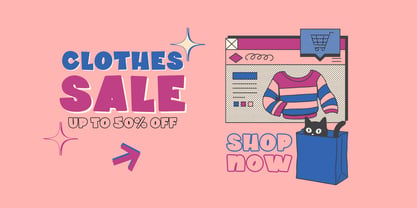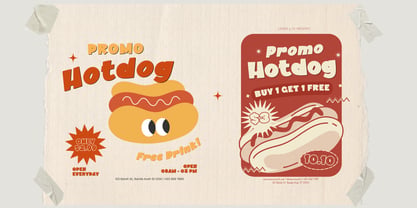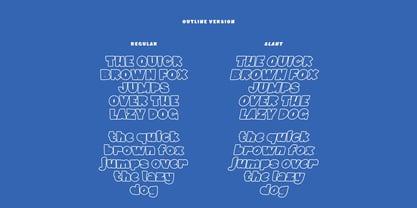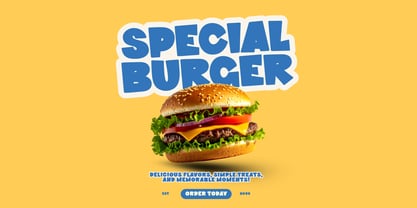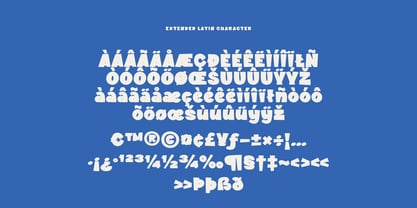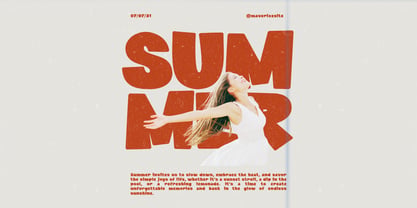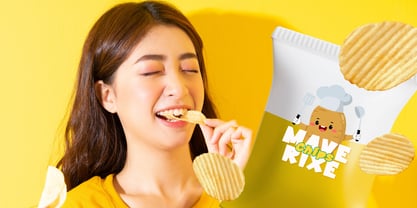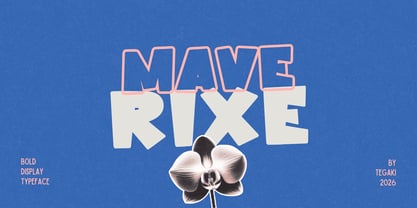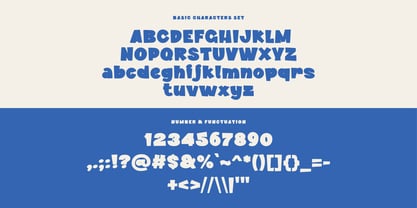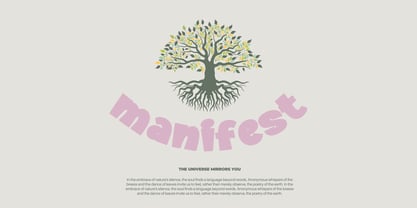
Maverixe
by Tegaki
The Maverixe Font Family was designed by Rudi Suhairi and published by Tegaki. Maverixe contains 4 styles and family package options. More about this family
Maverixe – Bold Display Typeface Maverixe is a bold display typeface designed to make a strong and confident statement. Featuring thick, playful letterforms with smooth curves and a solid structure, it delivers a modern yet friendly personality. The balanced proportions and distinctive shapes create an eye-catching presence, perfect for standout typography. This typeface comes in 2 versions: Bold and Outline, and each version includes Regular and Slant styles, giving you flexibility to create powerful static layouts or dynamic, energetic compositions. Maverixe is ideal for headlines, posters, branding, packaging, logos, social media graphics, merchandise, and editorial covers. Whether you’re building a bold brand identity or creating attention-grabbing promotional designs, this typeface ensures maximum visual impact.